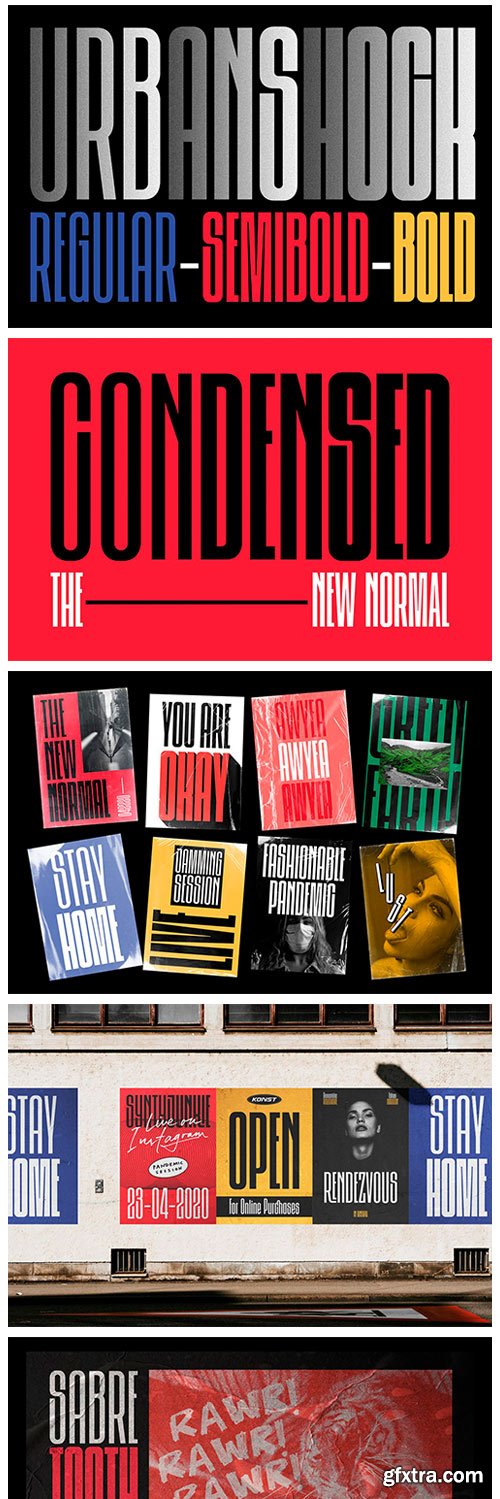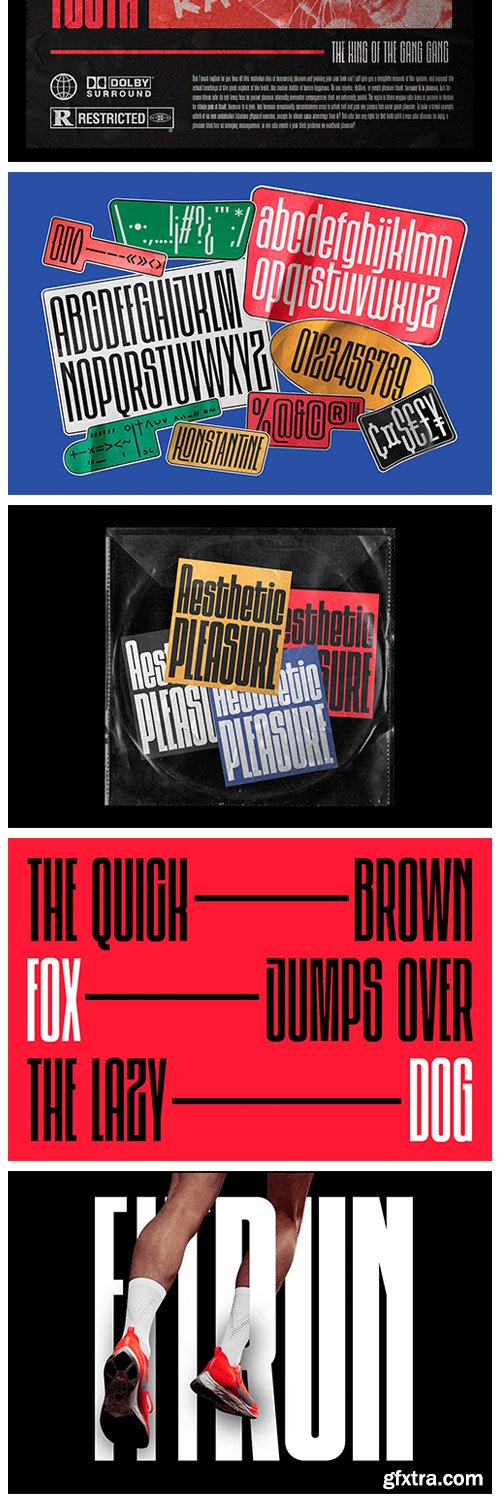
Urbanshock - Condensed Display Sans
It looks like the “pushing-to-the-edge" game in our productions are just getting stronger. Developing the display sans-serif to stand out from the crowd, needs a very personal and ego-based mind. Choosing which one of the rules that we should break, trying to keep staying "in the box", will always a big debate in the making of this font.
To expand the imagination, to experience a different way of visual composition. Take your mind to the place that you never been before with the URBANSHOCK. An edgy condensed display sans-serif font with very unusual vibes. Not your typical sans-serif at all. A word might look very different and hard to layout with this font, so do it at your own risk. Perfectly fit for the book cover, poster, album artwork, musical project, art event, art gallery, hip hop branding, visual campaign, logo, branding, website, social media content, let's get loud in a very different way.